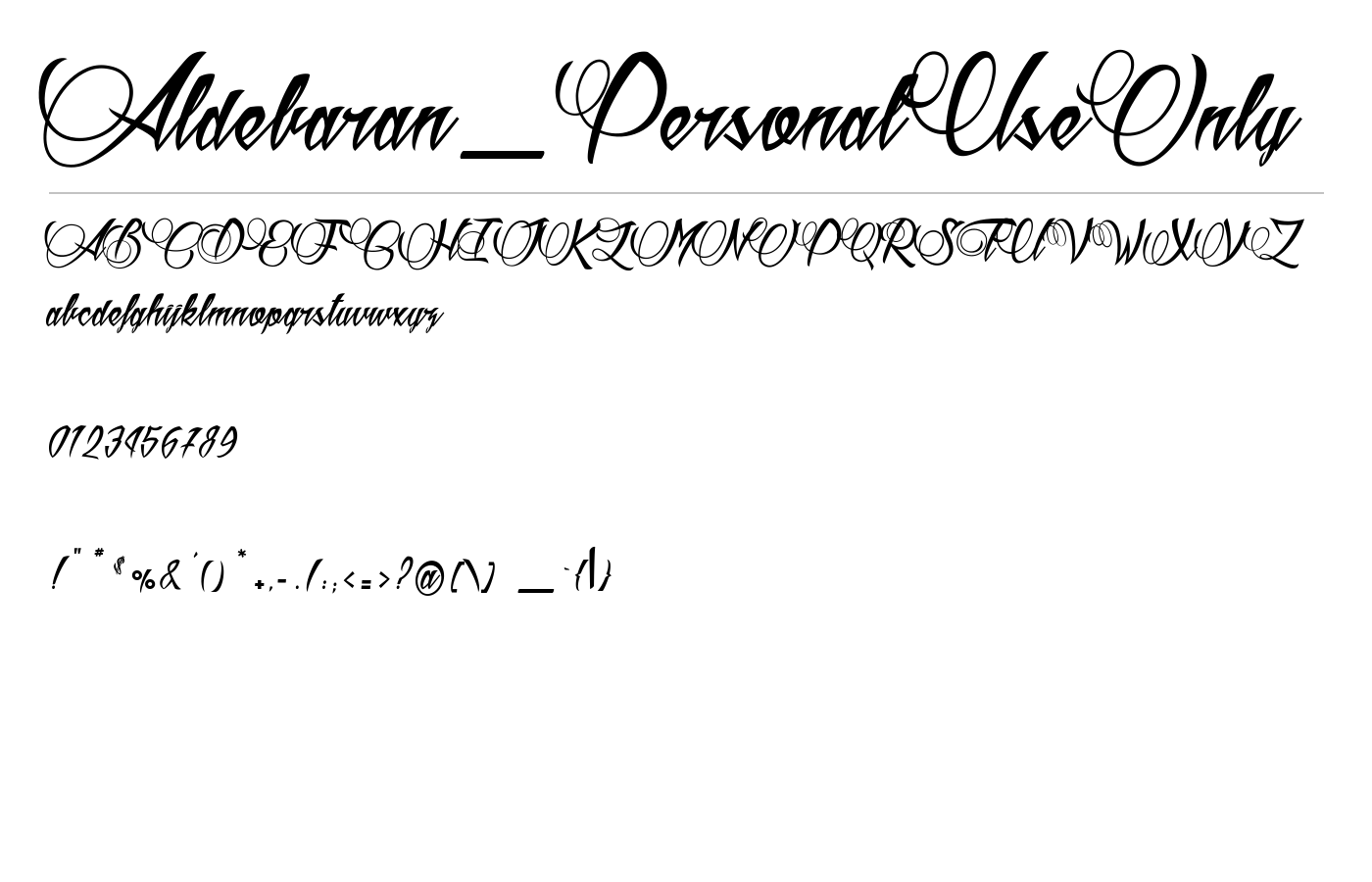
Aldebaran_PersonalUseOnly is an elegant script font characterized by its flowing, calligraphic style with high contrast between thick and thin strokes and elaborate swashes on capital letters. Its delicate and stylish appearance makes it ideal for luxury branding, invitations, and decorative headlines where a sophisticated, artistic touch is desired. This font works best in large sizes due to its intricate details, conveying a refined and graceful personality.
Aldebaran_PersonalUseOnly Font
About Aldebaran_PersonalUseOnly Font
| Font family | Aldebaran_PersonalUseOnly Font |
| Designer | Gregory Medina ©dcodesign |